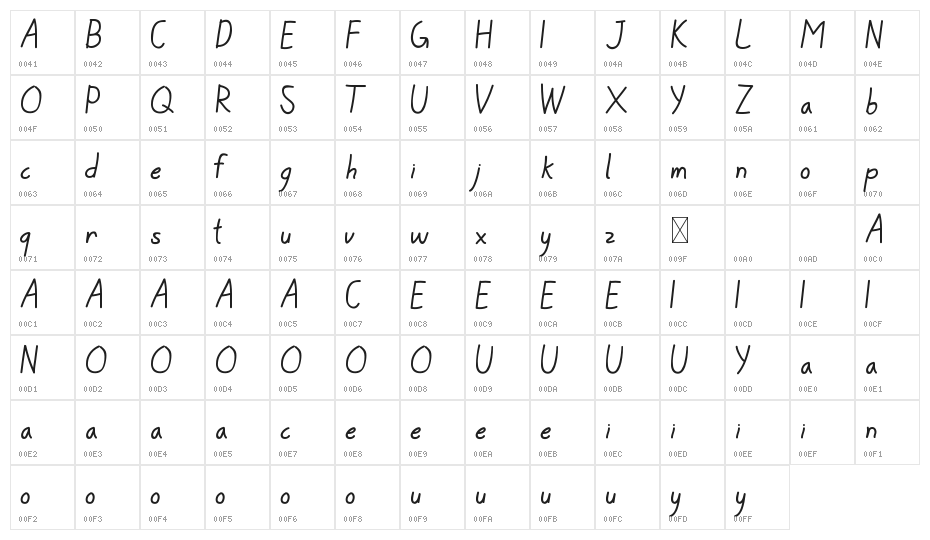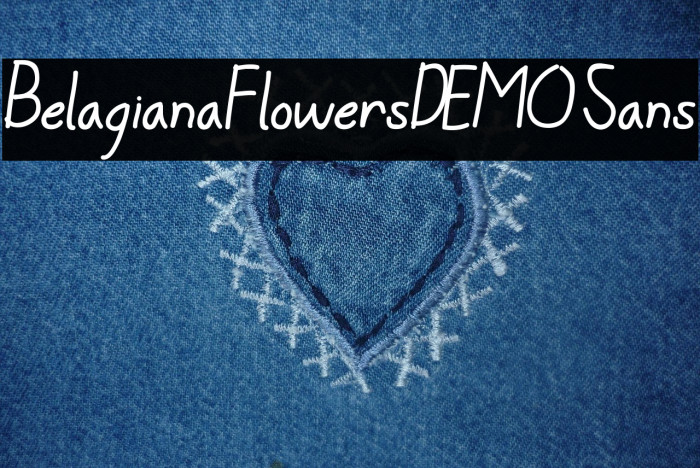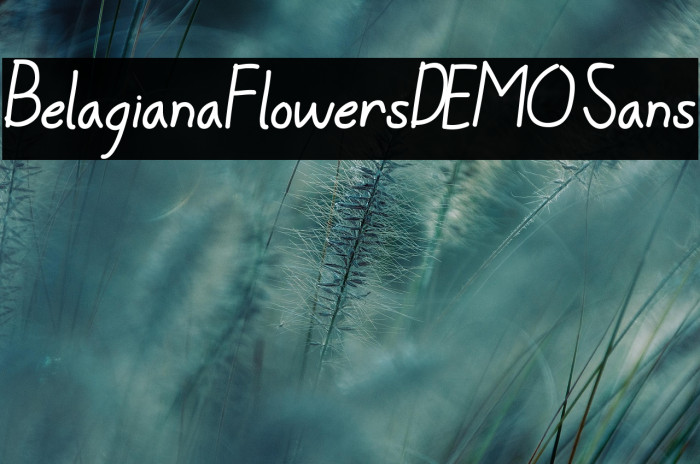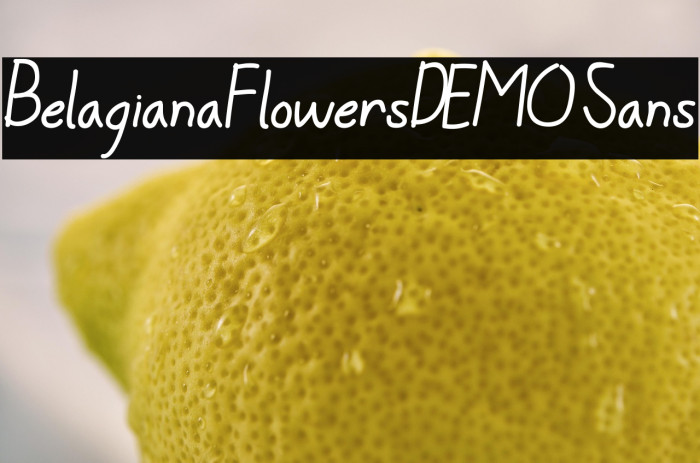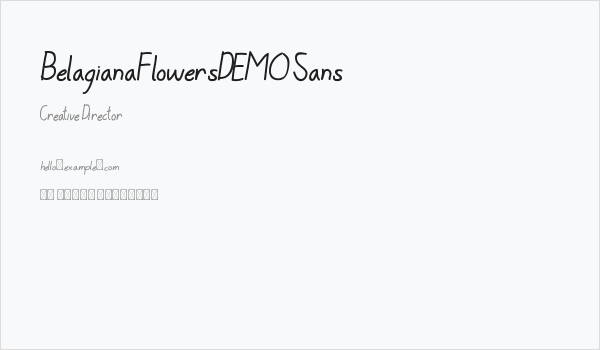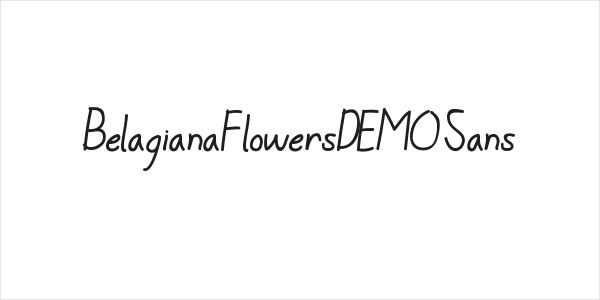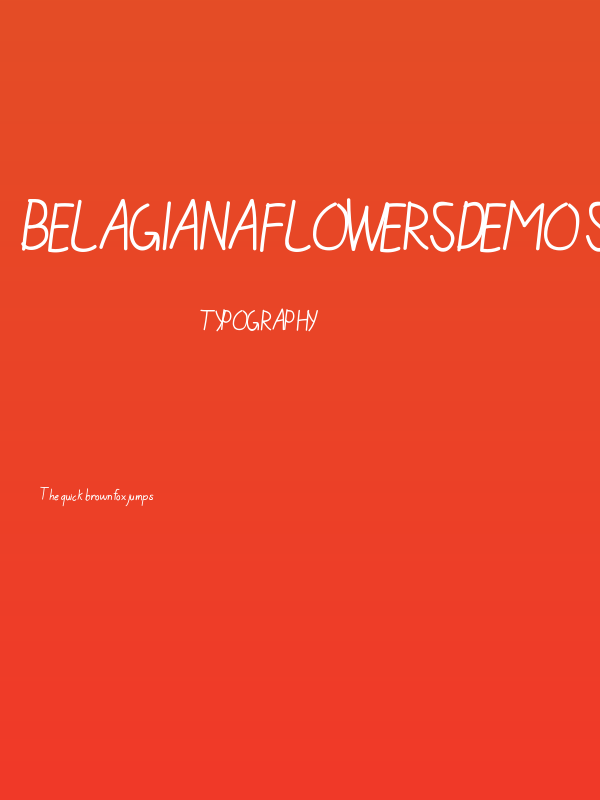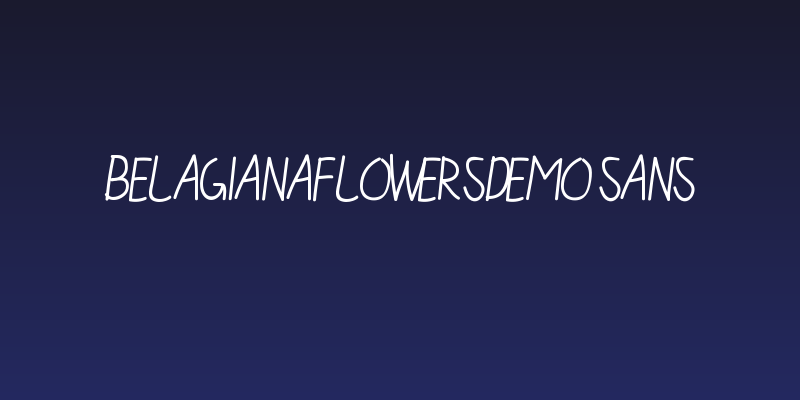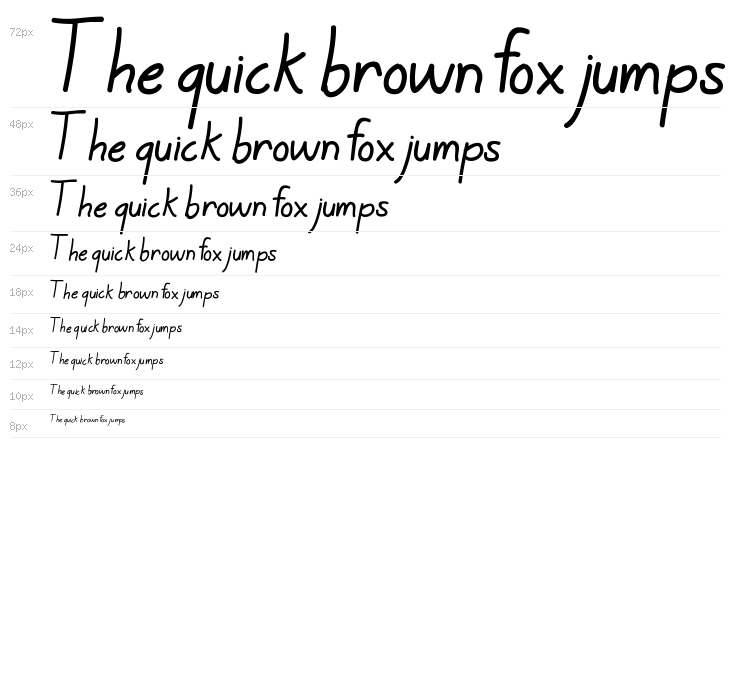
BelagianaFlowersDEMO Sans Font
BelagianaFlowersDEMO Sans Description
This font features a playful and casual handwritten style, characterized by its smooth curves and slightly uneven lines that mimic natural handwriting. The uppercase letters are tall and slender, while the lowercase letters maintain a consistent flow with a slight slant, adding to its informal charm. The font's strokes are uniform in thickness, providing a clean and approachable appearance. Its whimsical nature makes it suitable for projects that require a personal touch, such as invitations, greeting cards, and creative branding. The overall design is both friendly and versatile, making it a great choice for conveying warmth and approachability.
| Proposed Projects | Ideal for invitations, greeting cards, creative branding, and personal projects. |